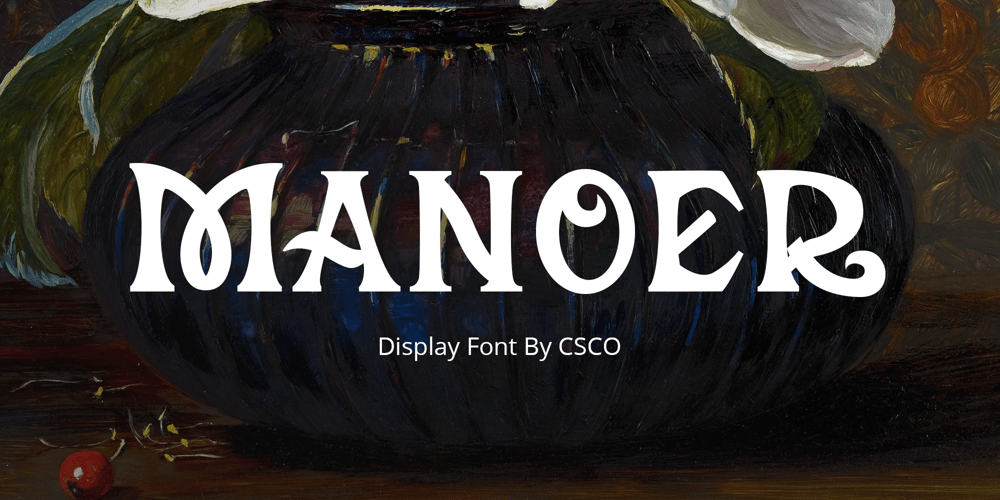
Manoer Font Family was designed by Trio Nazzar Saputra, Wahyu Hadi Yuana and published by Craft Supply Co. Manoer contains 1 styles and family package options. Manoer – Display Serif Font: Uniquely Eye-CatchingFunky and Fresh Design:Manoer – Display Serif is a font that brings a funky twist to traditional serif. It’s perfect for unique, eye-catching displays. This font adds a playful charm to any project.Ideal for Creative Displays:With its unique flair, Manoer excels in creative display needs. It captures attention in advertising, posters, and more. This font is a top choice for making a bold statement.